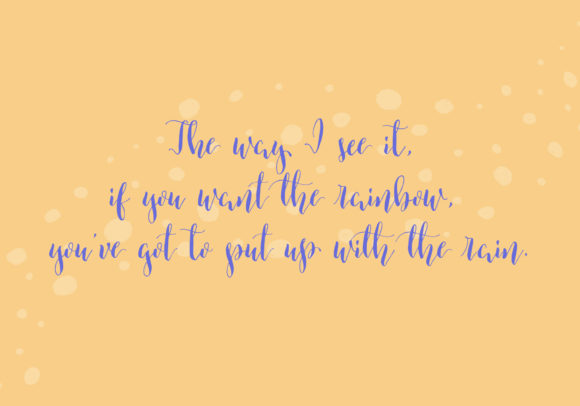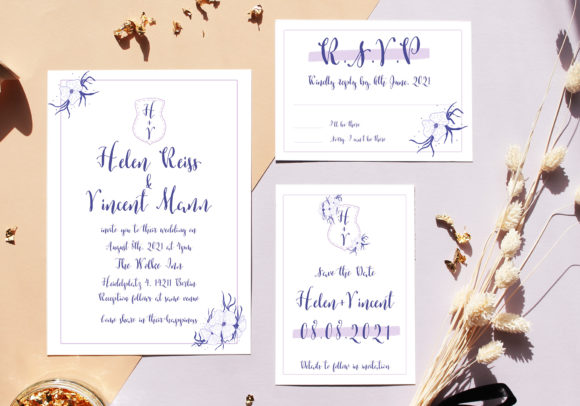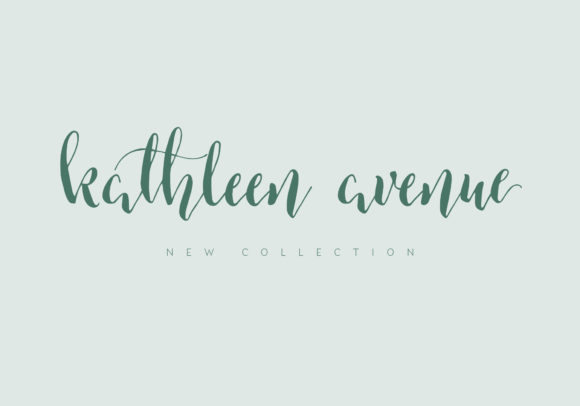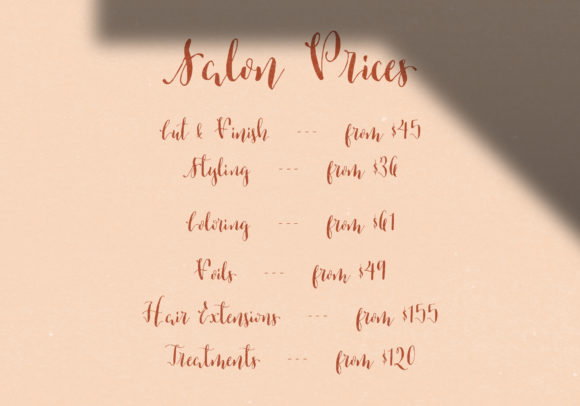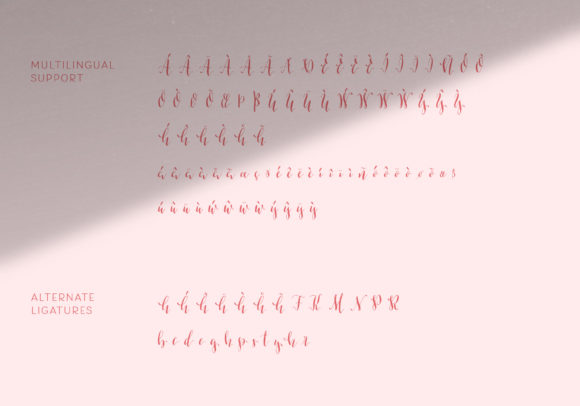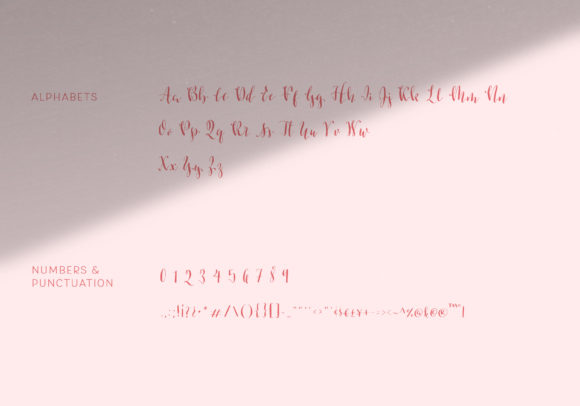
Introducing Brokkie Font: The Perfect Blend of Modern Twist and Earthy Charm
In the world of typography, fonts play a crucial role in conveying the tone and personality of a brand or design. For designers and crafters looking for a unique and relatable script font, Brokkie Font is an excellent choice. This lovely script font features a modern twist, adding a down-to-earth element to your designs that is sure to captivate your audience.
What Makes Brokkie Font Stand Out?
Brokkie Font is not just another script font; it’s a carefully crafted typeface that combines the elegance of traditional script fonts with the freshness of modern design. Its unique blend of classic and contemporary elements makes it an ideal choice for designers who want to create eye-catching logos, branding materials, and quotes that resonate with their audience.
One of the key features that sets Brokkie Font apart is its relatable and down-to-earth charm. In an era where minimalist and sleek designs dominate the visual landscape, Brokkie Font offers a refreshing change of pace. Its subtle imperfections and organic feel make it perfect for designers who want to add a touch of warmth and personality to their work.
The Benefits of Using Brokkie Font
So, why should you choose Brokkie Font for your next design project? Here are just a few benefits that make it an excellent choice:
- Ease of readability: Brokkie Font is designed to be easy to read, making it perfect for body text, headings, and titles.
- Versatility: Whether you’re designing a logo, brochure, or social media graphic, Brokkie Font adapts seamlessly to different contexts and mediums.
- Uniqueness: With its modern twist and script font style, Brokkie Font helps you stand out from the crowd and establish a distinctive brand identity.
- Emotional connection: The down-to-earth charm of Brokkie Font helps create an emotional connection with your audience, making your designs more relatable and engaging.
How to Use Brokkie Font in Your Designs
Brokkie Font is an incredibly versatile typeface that can be used in a wide range of design applications. Here are a few ideas to get you started:
- Logo design: Use Brokkie Font to create a custom logo that reflects your brand’s personality and values.
- Branding materials: Apply Brokkie Font to your branding materials, such as business cards, letterheads, and packaging, to create a consistent visual identity.
- Quotes and typography: Use Brokkie Font to create stunning typographic quotes, posters, and social media graphics that inspire and engage your audience.
- Digital design: Apply Brokkie Font to your digital designs, such as website headers, email newsletters, and mobile app interfaces, to add a touch of warmth and personality.
In conclusion, Brokkie Font is a beautiful script font that offers a unique blend of modern twist and earthy charm. Its relatable and down-to-earth element makes it perfect for designers and crafters who want to create eye-catching logos, branding materials, and quotes that resonate with their audience. With its ease of readability, versatility, uniqueness, and emotional connection, Brokkie Font is an excellent choice for any design project. So why not give it a try and see how it can elevate your designs to the next level?
Whether you’re a seasoned designer or a crafty DIY enthusiast, Brokkie Font is sure to become a valuable addition to your typography toolkit. So go ahead, explore the possibilities, and let Brokkie Font help you create designs that are both beautiful and meaningful.